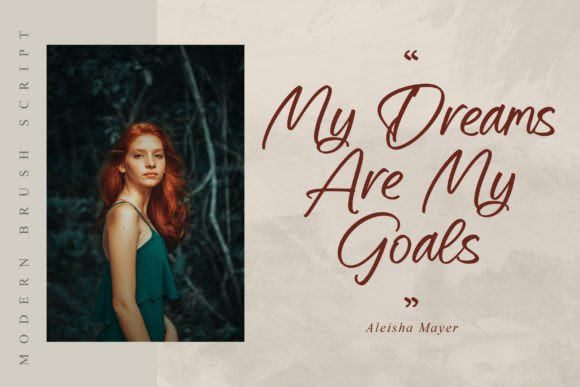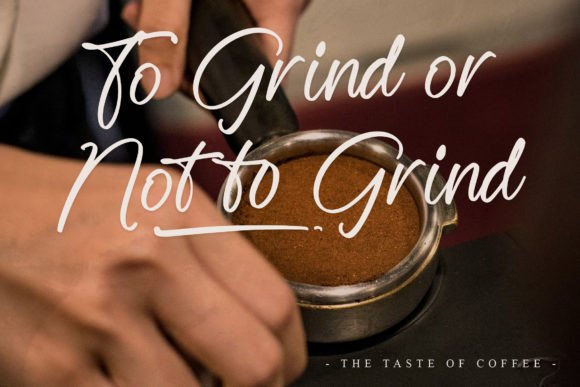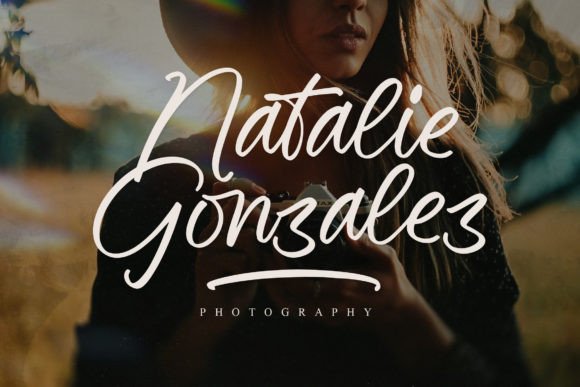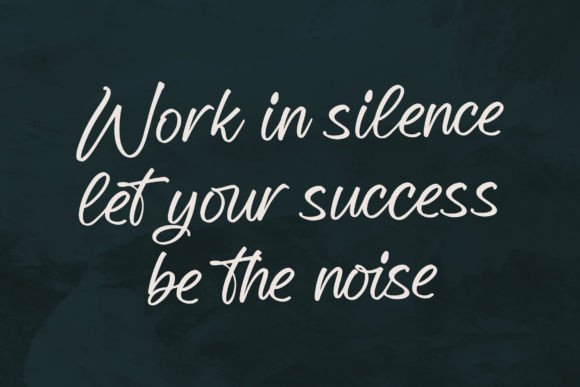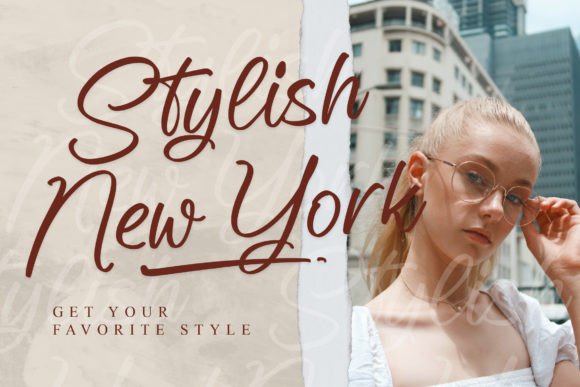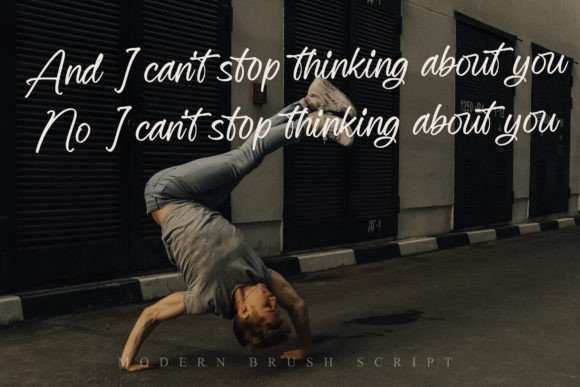
Introducing Gabstely Font: Elevate Your Designs with Elegance and Sophistication
In the world of design, fonts play a crucial role in conveying the tone and aesthetic of a project. For designers and crafters seeking a beautiful and modern handwritten font to elevate their creations, look no further than Gabstely Font. This stunning script font is perfect for a wide range of applications, from logos and branding projects to homeware designs, product packaging, and more.
What Makes Gabstely Font Special?
Gabstely Font is a versatile and elegant handwritten font, carefully crafted to add a touch of sophistication to any design. Its modern and beautiful script style makes it an ideal choice for designers and crafters looking to create visually appealing and professional-looking projects. Whether you’re working on a logo, branding project, or product packaging, Gabstely Font is sure to impress.
Gabstely Font is suitable for a diverse array of projects, including:
- Logos and branding projects: Create a lasting impression with a beautiful and memorable logo that showcases your brand’s personality.
- Homeware designs: Add a touch of elegance to your home decor with Gabstely Font, perfect for designing wall art, throw pillows, and more.
- Product packaging: Stand out on store shelves with eye-catching packaging that features Gabstely Font.
- Mugs, quotes, posters, shopping bags, T-shirts, book covers, name cards, invitation cards, greeting cards, labels, photography, watermarks, and special events: The possibilities are endless with Gabstely Font!
Gabstely Font is PUA (Private Use Area) encoded, which means you can access all of the glyphs and swashes with ease. This feature makes it simple to customize your designs and add unique touches that set your projects apart. With Gabstely Font, you can:
- Access a wide range of glyphs and swashes to add visual interest to your designs.
- Easily customize your projects with a variety of alternates and ligatures.
- Create stunning designs that showcase your creativity and attention to detail.
Why Choose Gabstely Font?
With so many fonts available, why choose Gabstely Font? Here are just a few reasons why designers and crafters love this beautiful script font:
- Unique and elegant script style that adds a touch of sophistication to any design.
- Versatile and suitable for a wide range of projects, from logos and branding to homeware designs and product packaging.
- PUA encoded for easy access to glyphs and swashes, making customization a breeze.
- Perfect for designers and crafters looking to create professional-looking projects with a personal touch.
Get Creative with Gabstely Font
Ready to elevate your designs with Gabstely Font? With its beautiful and modern script style, PUA encoding, and versatility, this font is sure to become a staple in your design toolkit. Whether you’re a seasoned designer or a crafty DIY enthusiast, Gabstely Font is the perfect choice for anyone looking to add a touch of elegance and sophistication to their projects.